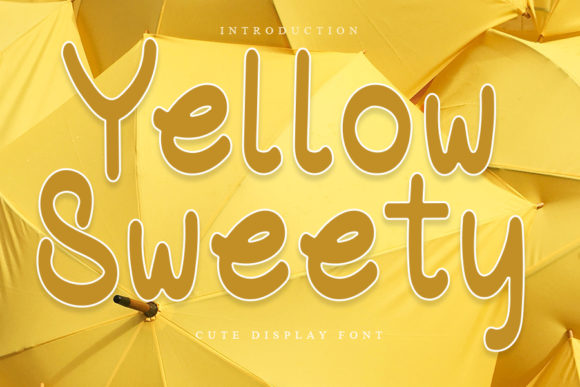
Introducing YellowSweety, the Delightful Display Font:
Embark on a captivating journey with YellowSweety, the modern display font that exudes charm and playfulness. Crafted with meticulous attention to detail, each character dances with a unique personality, capturing the hearts of those who seek a touch of whimsy in their designs.
With its eye-catching curves and cheerful demeanor, YellowSweety transforms your words into works of art. Its generous kerning and smooth lines allow for effortless readability, making it an ideal choice for headlines, logos, and packaging that demands attention.
But that's not all - YellowSweety goes beyond mere aesthetics. It's a font designed for the modern era, providing unmatched versatility that caters to a spectrum of design projects. Experiment with its endless variations, exploring the possibilities of letter-scaling, kerning, and ligatures to create captivating designs that resonate with your audience.
Unleash the Power of YellowSweety:
Embrace the playful nature of YellowSweety and watch as it transforms your designs into expressions of pure delight. Let this font guide you as you create invitations, branding materials, websites, and any project that demands a touch of whimsy.
Join the YellowSweety movement and let this font ignite your imagination, leaving a lasting impression on the hearts of your audience. Embrace the versatility, bask in the charm, and discover the endless creative possibilities that await you with YellowSweety.
After that, choose YellowSweety for a design experience that's anything but ordinary. Embrace the joyfulness, explore the variations, and captivate your audience with this one-of-a-kind display font.